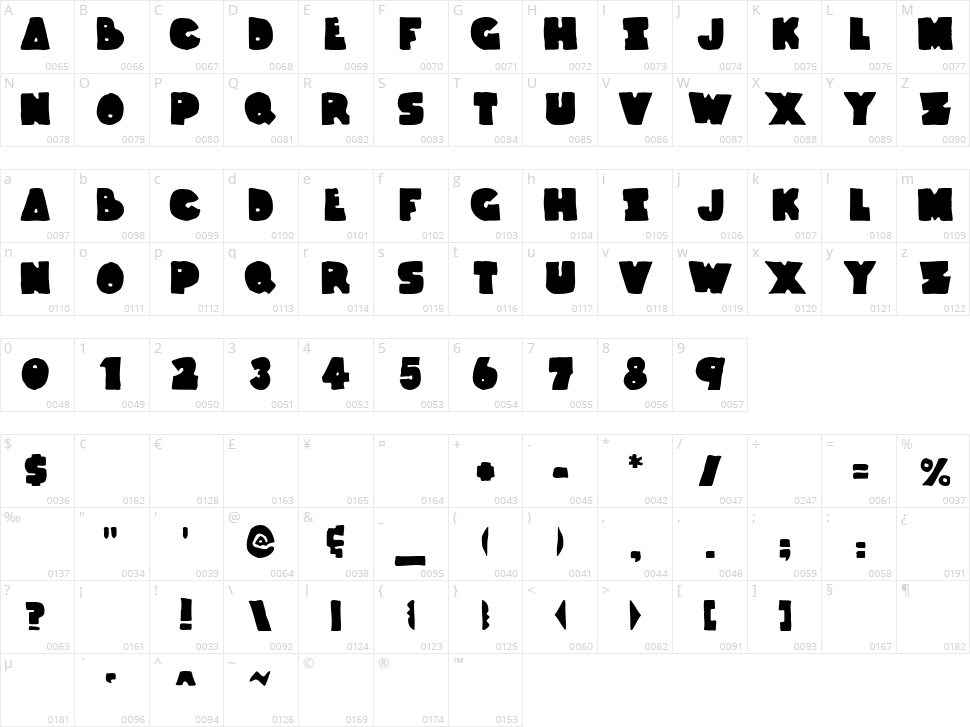
Thunder Thighs
THUNDER THIGHS
A TrueType Font by S. John Ross
Thunder Thighs is a goofy, friendly sort of font, reminiscent of cartoon logos and the like from the late 1970s. Those kinds of shapes, and the comforting nature of huge amounts of black ink on formerly-blank paper, made this one a particularly enjoyable one to create. I drew it with a 0.8mm Pigma and then blackened it with my trusty Sharpie; the whole process was a kind of reversion to childhood. Same principle as "comfort food," I suppose - a valuable concept in these troubled times.
Thunder Thighs is a full keyboard set with a few essential extras like smartquotes and dashes.